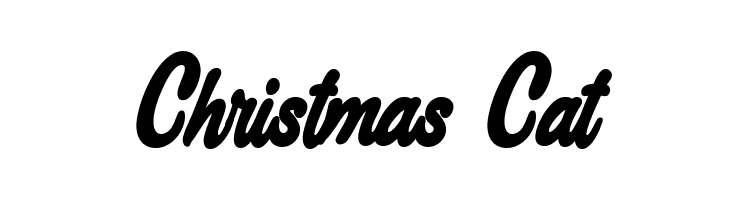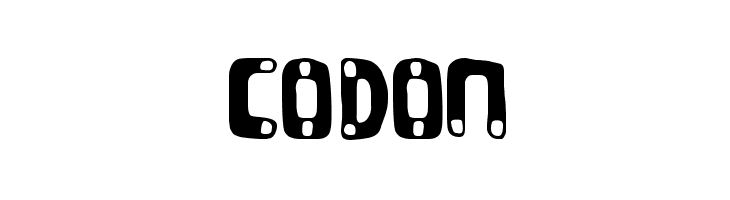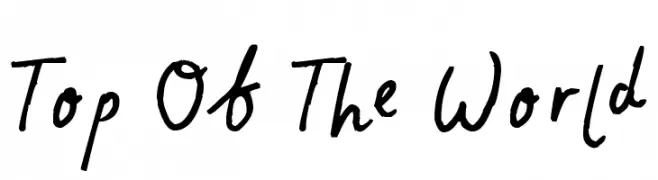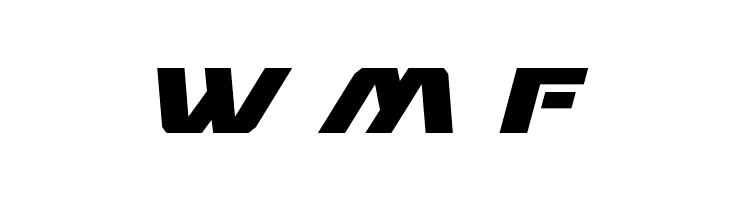
A classic serif font with elegant italic styling and moderate contrast.
A futuristic, geometric font with bold, stylized characters and star accents.
A playful, hand-drawn style font with whimsical and artistic flair.
A bold, vintage-style font with distressed, hand-crafted characters.
A bold, expressive script font with fluid, interconnected strokes.
A playful, bold font with irregular, blob-like shapes and a fluid, organic style.
A classic serif font with calligraphic influences and elegant strokes.
设计师偏爱 DejaVu Serif Italic, AccanthisADFStdNo2-BoldItalic, Your Smile, SL Drops Of Moonlight and Drafting Table,因为其造型干净、适用范围广—— 从品牌识别到落地页、海报都能胜任。